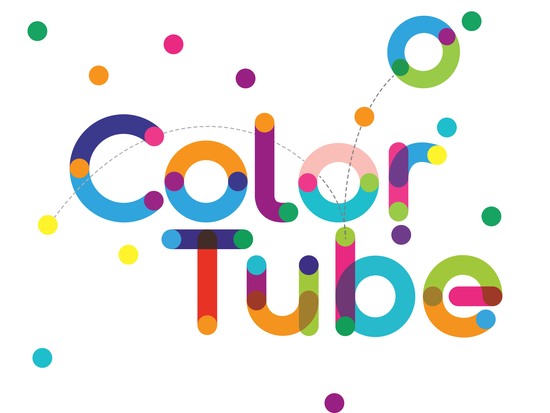
Designers, crafters, and small business owners often look for fonts that add personality and visual interest to their projects. The {title} is a great example of a font that brings a playful, vibrant energy to any design. Whether you're working on children's books, school projects, or custom t-shirts, this font can help make your work stand out.
The {title} is a colorful typeface that uses different colors within each character. This unique feature makes it ideal for creative projects that need a bit of extra flair. However, it’s important to note that the color version of this font has specific compatibility requirements. It works with programs like Photoshop, Illustrator, Silhouette, and Inkscape, but not with Cricut Design Space. If you're using a different platform, you might want to check the file types available.
What Makes Color Tube Pro Font Stand Out?
One of the main reasons designers choose the {title} is its eye-catching style. The use of multiple colors in each letter gives it a lively, almost hand-painted feel. This makes it perfect for designs that need to grab attention, such as posters, banners, and social media graphics.
How to Use Color Tube Pro Font Effectively
If you’re new to using colored fonts, it’s helpful to understand how they work. Unlike standard fonts, which have a single color per character, the {title} uses different colors inside each letter. This means you’ll need to use software that supports this feature. Programs like Adobe Illustrator and Inkscape are good options for working with this font.
Best Practices for Working with Color Fonts
- Test the font in your design software: Make sure it displays correctly before using it in a final project.
- Use it sparingly: Colorful fonts can be overwhelming if used too much. Pair them with simpler fonts for balance.
Who Can Benefit from Using This Font?
The {title} is especially useful for creators who want to add a fun and dynamic element to their work. Teachers and educators might find it helpful for creating engaging classroom materials. Print-on-demand sellers can use it to design eye-catching products for online stores. Hobbyists and DIY enthusiasts will appreciate its creative potential for personal projects.
Small businesses that focus on branding or marketing can also benefit from using this font. It adds a sense of creativity and originality that can set their designs apart from the competition. Just remember to keep the overall design clean and readable, even when using a colorful font.